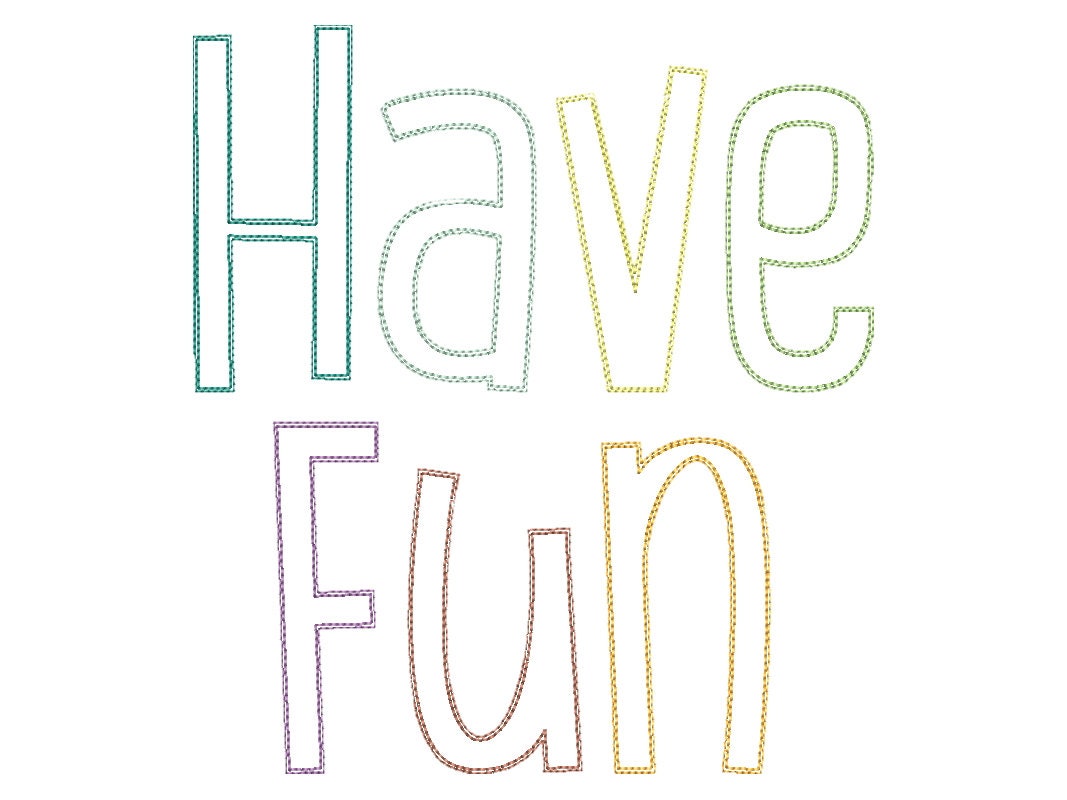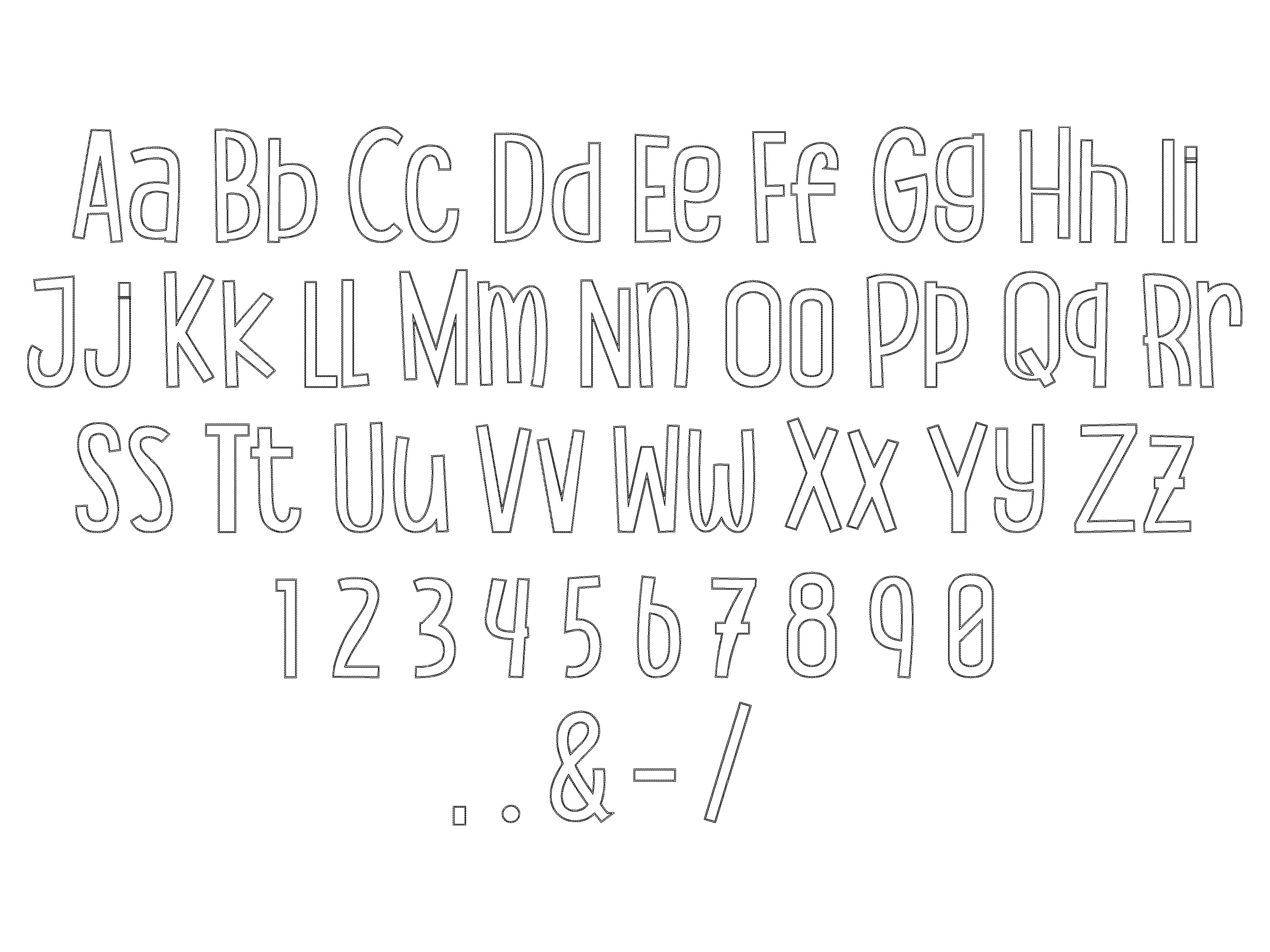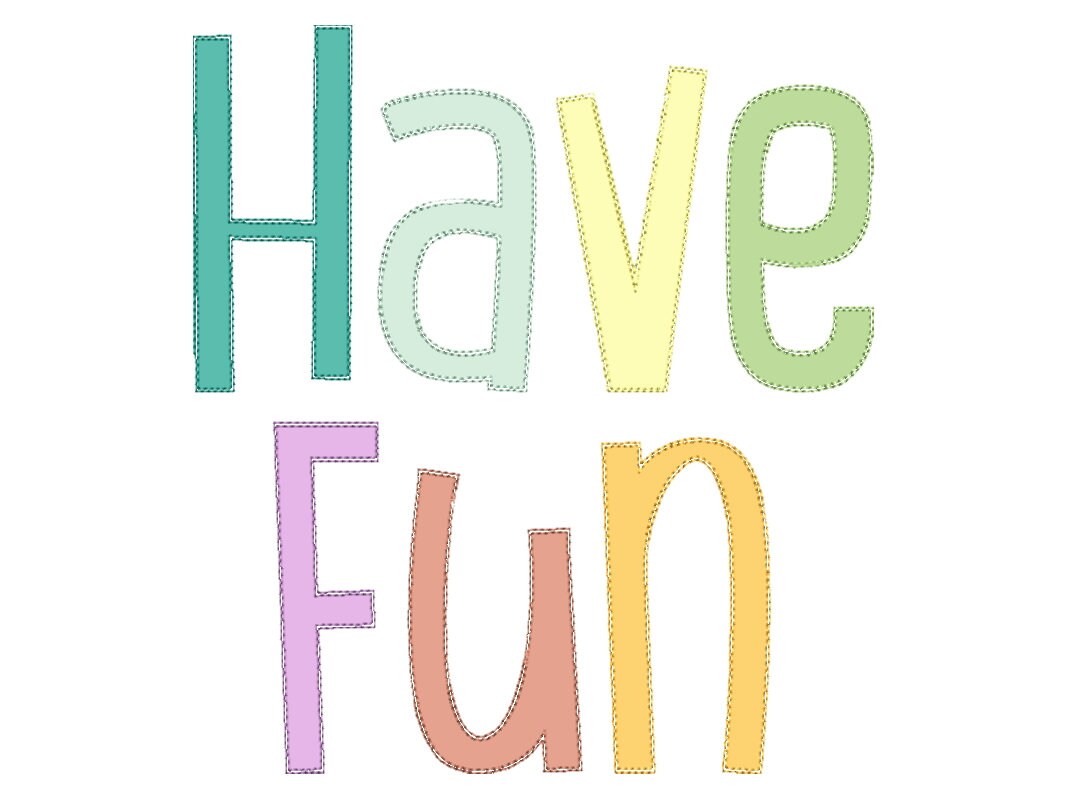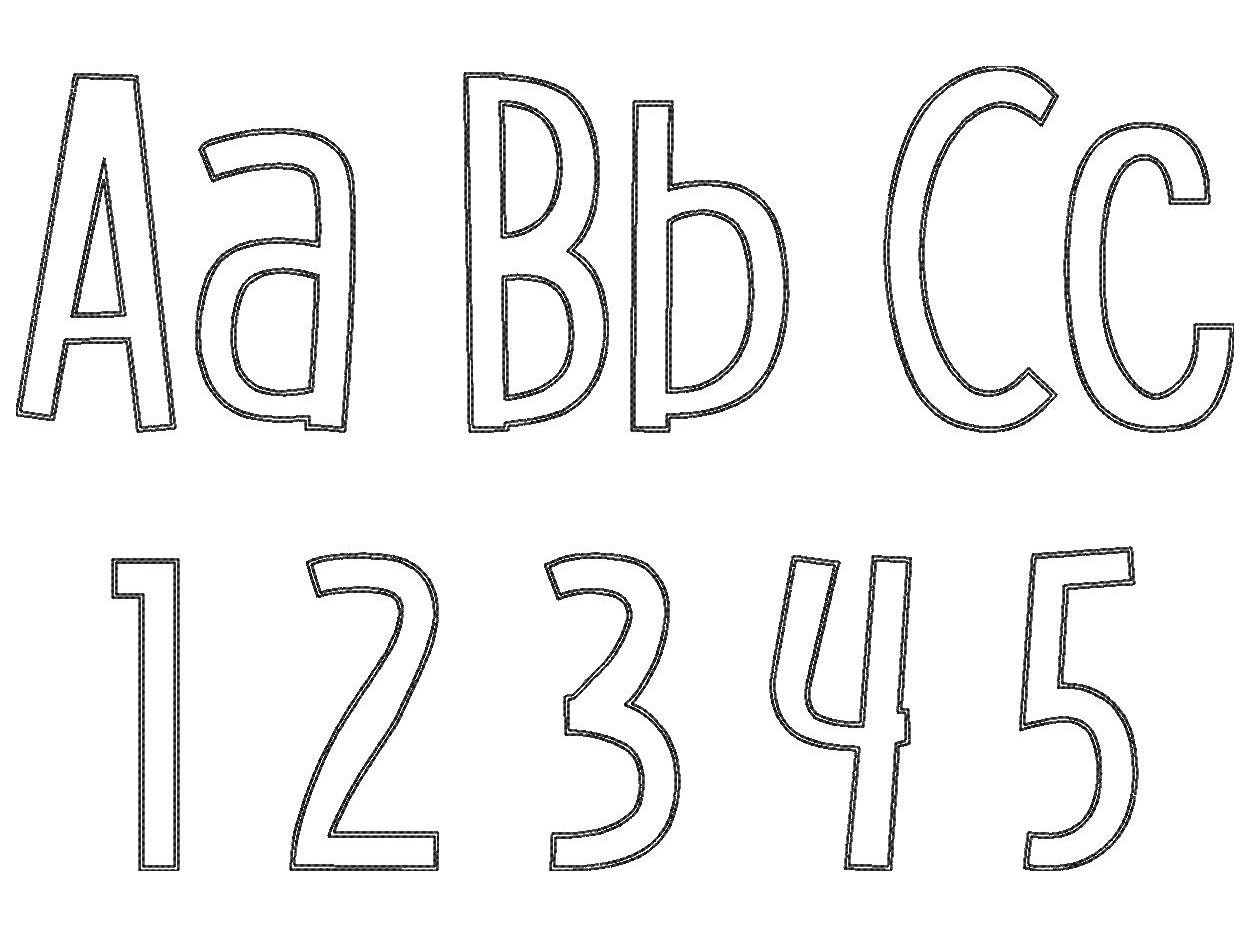
Funny Kids Font alphabet name monogram letters and numbers raggedy edge applique machine embroidery designs assorted sizes, BX included
Uppercase and lowercase letters, numbers and punctuation & . , - /
These are quick stitch outline designs, the background fabric looks through.
May also be used as raggedy edge applique. Just stitch and trim excess fabric.